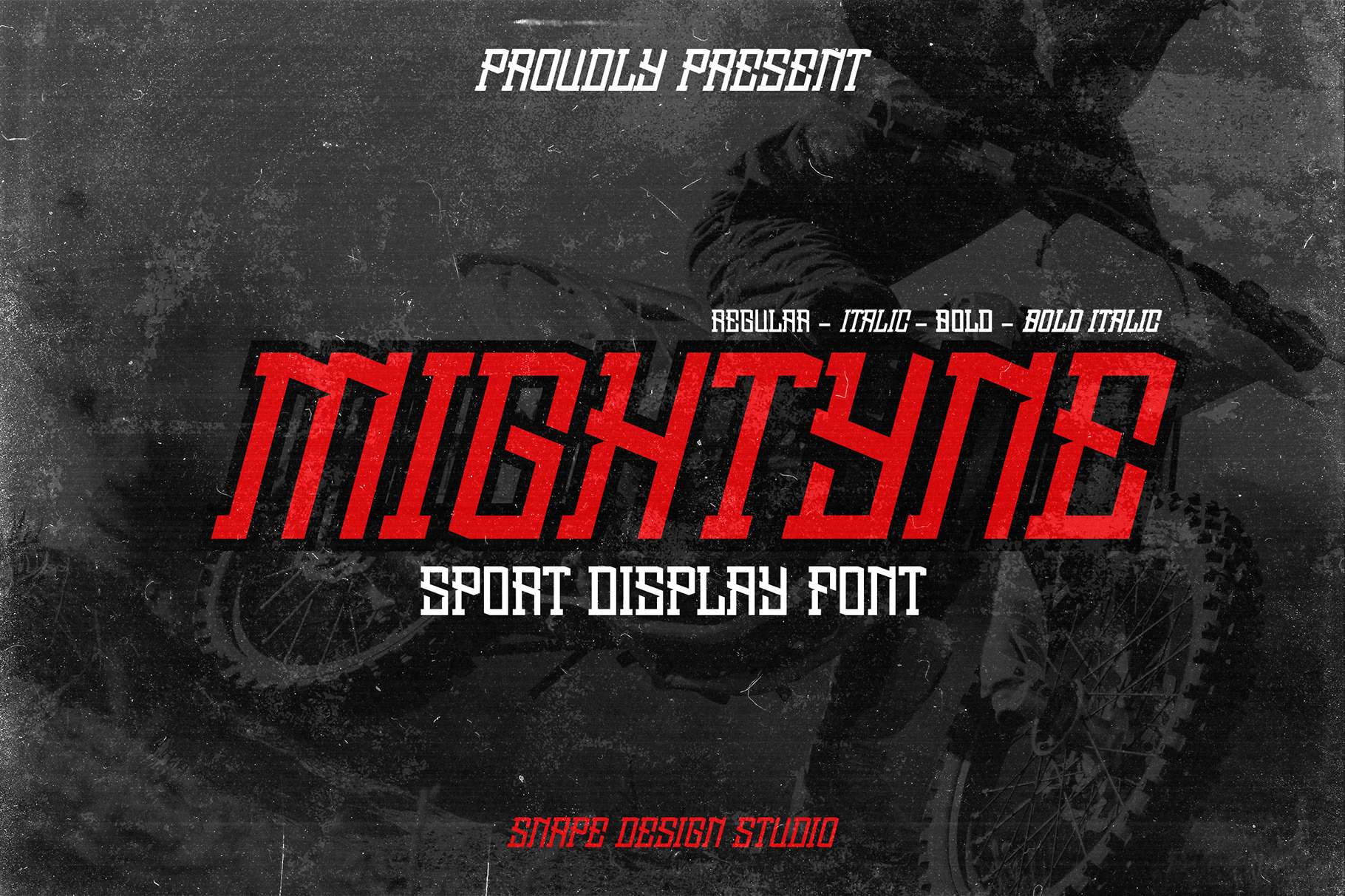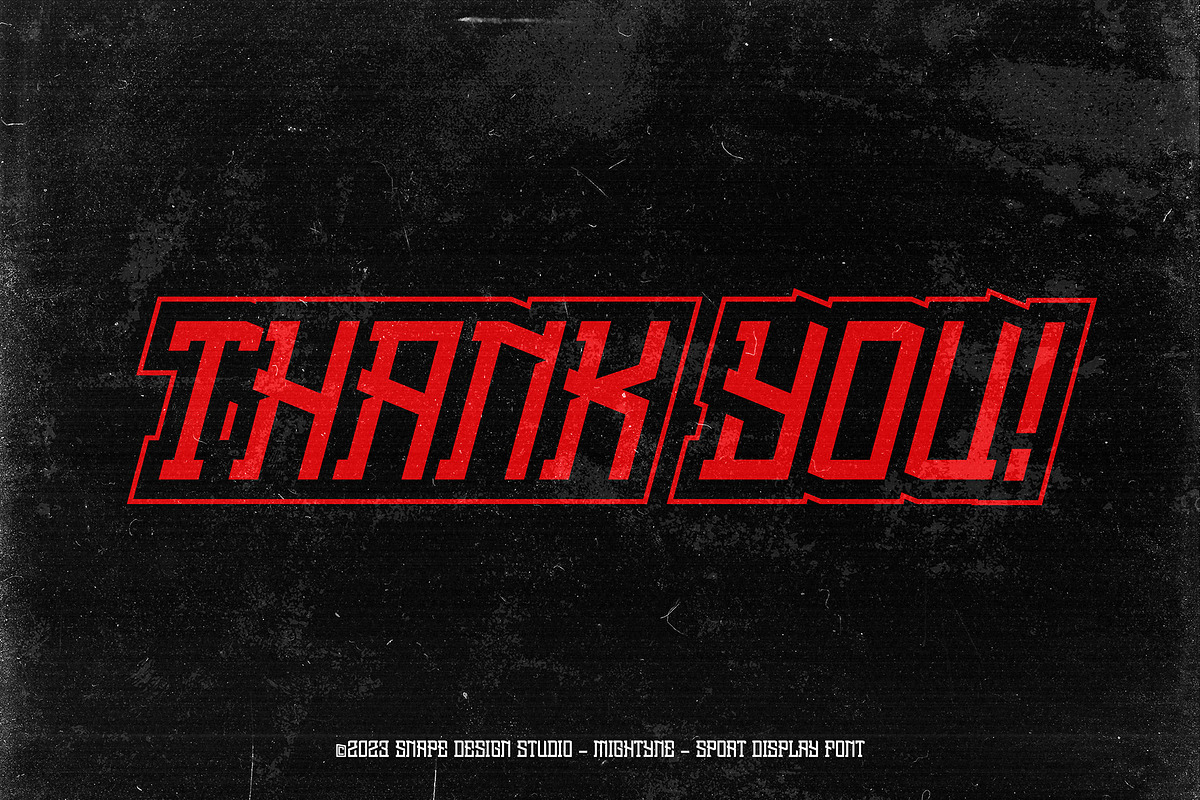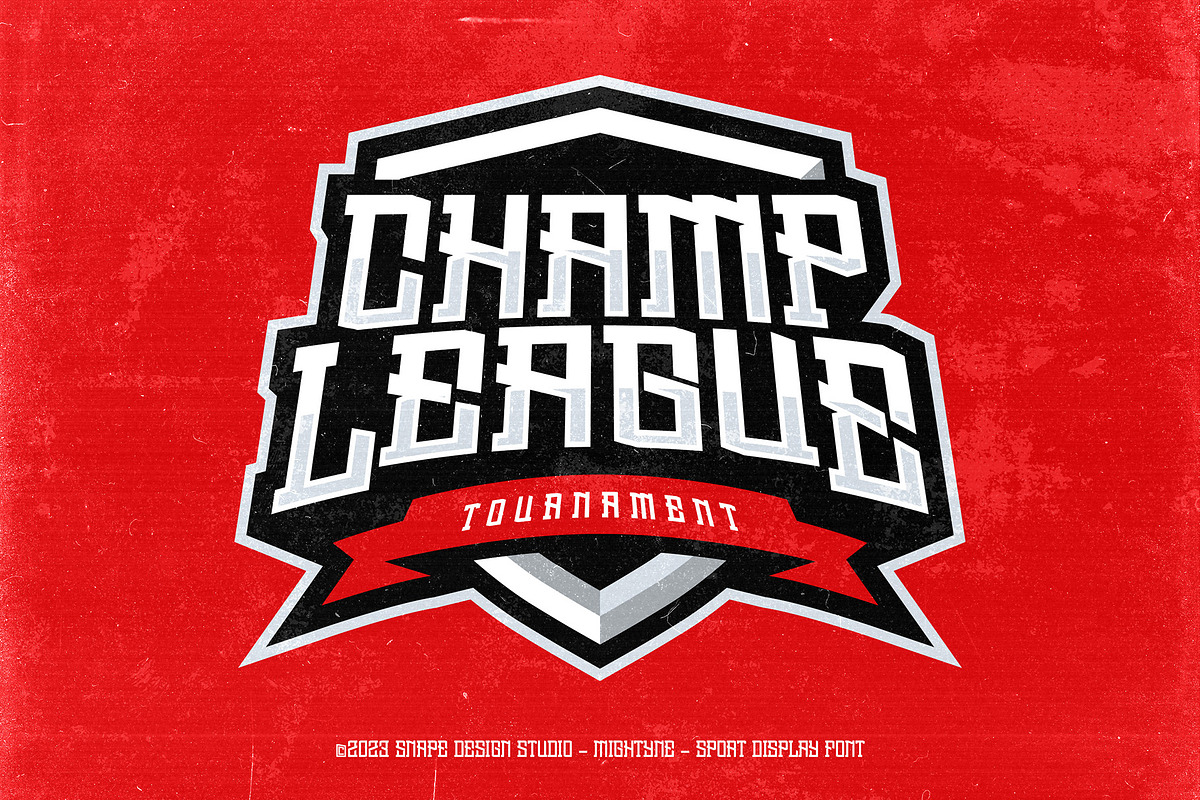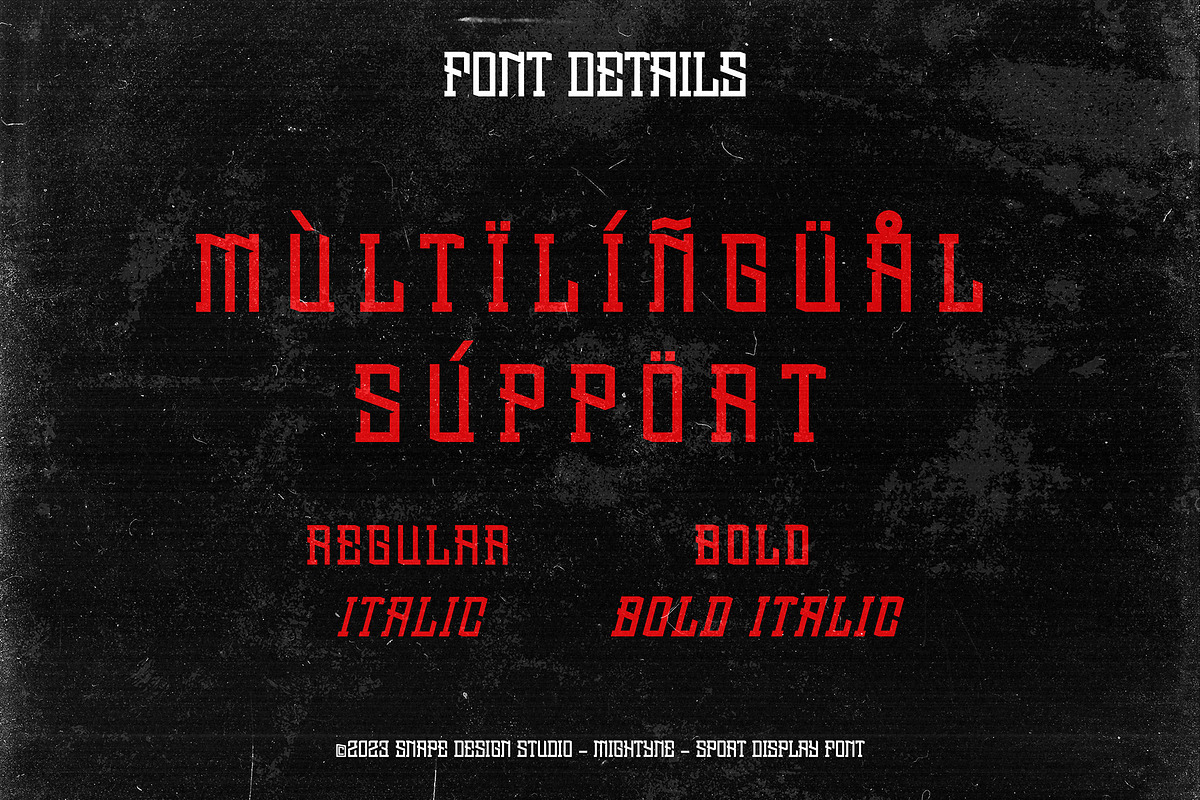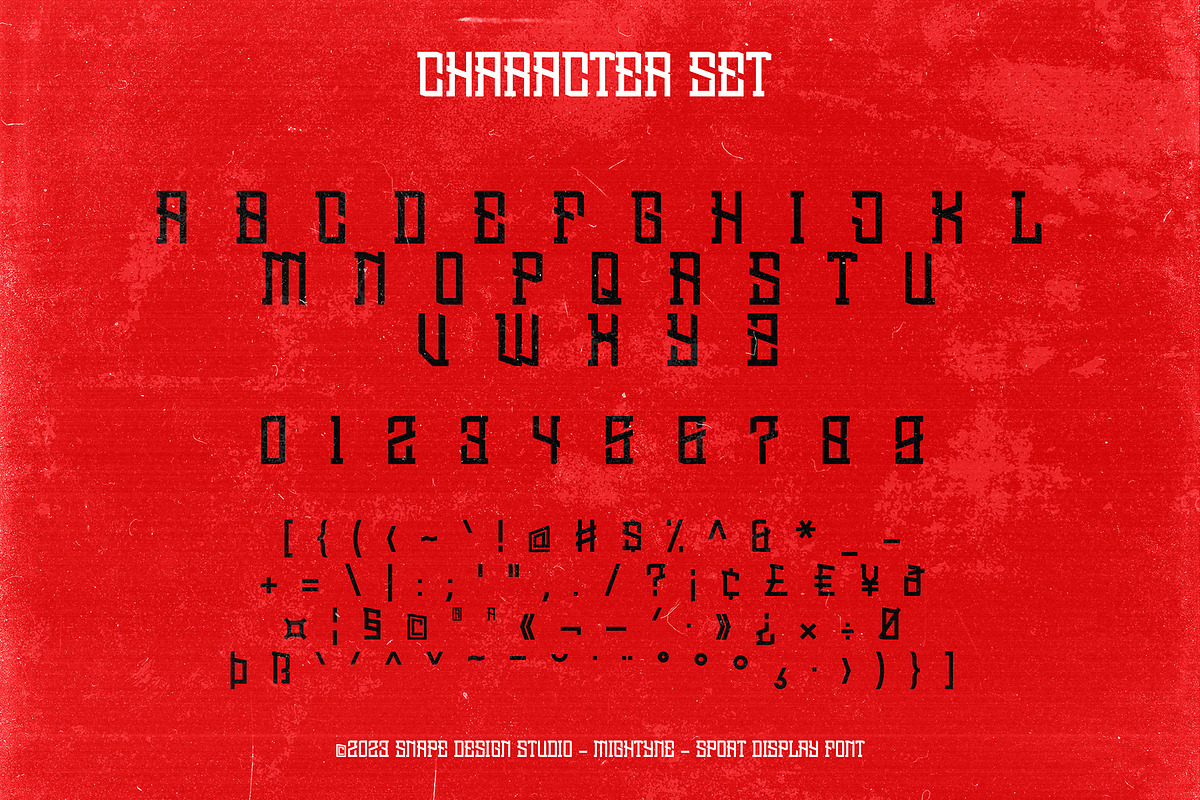
Mightyne - Sport Font
Mightyne is sport font, designed to draw attention and highlight any project that requires a bold feel, look powerful, created to add a vibrant touch to your sport-inspired designs. Suitable for sport design, team, jersey, league, movie, documenter, film, logo, poster, game, book cover, headlines, title and many more projects. Add this font to your creative ideas and notice how it will make them stand out!
FEATURES : Uppercase Lowercase Number Punctuation Multilingual
FAMILY FONT : Regular Italic Bold Bold Italic